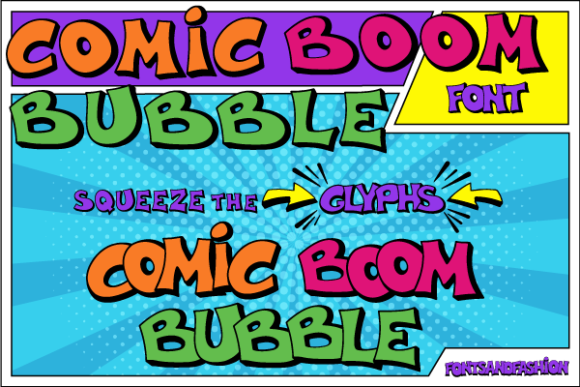
Unleash Your Creativity with Comic Boom Bubble Font
Remember that moment when you stumbled upon the perfect font, and your DIY project just came alive? It’s like the missing piece of a puzzle, and everything falls into place. For designers, finding the right font can be a game-changer. And today, we’re excited to introduce you to a new favorite – the Comic Boom Bubble Font.
This gorgeous and unique font is a true showstopper, carefully handcrafted to bring a touch of fun and playfulness to any project. Whether you’re creating a handmade card, a custom logo, or a social media graphic, the Comic Boom Bubble Font is sure to make your design stand out. Its bold and eye-catching style makes it a valuable addition to any designer’s toolkit, and we can’t wait to see what amazing things you create with it.
Comic Boom Bubble Font Key Features
- Bubble Effects: The Comic Boom Bubble Font features a unique bubble effect, allowing users to create a comic book-like atmosphere in their designs.
- Professional-Quality: The font is designed to meet the highest standards of quality, making it suitable for use in professional design projects, including graphic novels, comics, and children’s books.
Comic Boom Bubble Font Review
First off, I want to say that I was excited to dive into the Comic Boom Bubble Font. The initial impressions were ✨ fun and playful, with a great nostalgic vibe that screams “comic book”! The designer has done an excellent job in capturing the essence of bubble fonts, and it’s a great choice for anyone looking to add some whimsy to their design.
Some of the things that really work well include:
- ✨ The variety of font sizes and styles available, making it easy to customize and use in different contexts.
- ✨ The bold and playful feel, perfect for headings and titles.
- ✨ The font’s versatility, suitable for both digital and print designs.
- ⚠️ The font may be too loud or overwhelming for more subtle designs, so be sure to use it judiciously.
- ⚠️ Some users may find the font too childish or immature, which could be a concern for certain projects.
Overall, I think the Comic Boom Bubble Font is a great addition to any designer’s toolkit. While it may not be suitable for every project, it’s a fun and creative option that can add a lot of personality to your designs.
Comic Boom Bubble Font Practical Application Guide
To get the most out of the Comic Boom Bubble Font, try the following:
- Use it in combination with bold or italic text for emphasis.
- Pair it with other playful fonts for a unique look.
The Comic Boom Bubble Font is ideal for:
- Children’s books and educational materials.
- Comic books and graphic novels. Alternative Font Options for Designers
- Choose your favorite quotes and arrange them on a wall or a canvas.
- Use Comic Boom Bubble Font for the quotes, adjusting the size and color to match the mood of your design.
- Add some background textures or patterns to give your design a more eclectic feel.
- Use colorful balloons or clouds to add a sense of whimsy.
- Include illustrations or doodles to make the quotes more engaging.
- Experiment with different font combinations to create a unique visual effect.
- Use Comic Boom Bubble Font for the main text, such as the party name and date.
- Add some comic book-inspired graphics, such as speech bubbles or thought clouds.
- Include a bold and colorful background to make the invitation stand out.
Project 1: Whimsical Quote Wall
Create a playful and inspiring quote wall using Comic Boom Bubble Font. This font adds a fun and carefree touch to your quotes, perfect for a bedroom or living room.
How to use Comic Boom Bubble Font:
Project 2: Comic Book-Inspired Invitation
Design an eye-catching invitation for a comic book-themed party or event using Comic Boom Bubble Font. This font adds a fun and energetic touch to your invitation, setting the tone for a memorable celebration.
How to use Comic Boom Bubble Font: